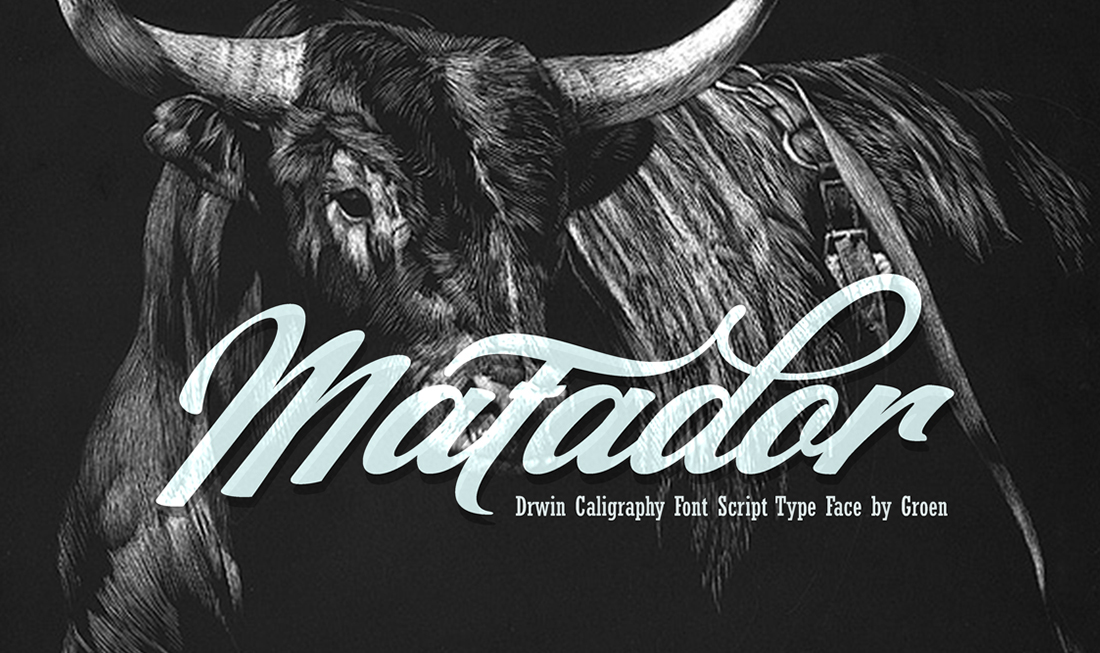
Matador–Free Sample
Matador is bold brush-lettered script that is beautiful and unique. It is a great combination of modern lettering and old-school calligraphy. Big thanks to Groens Studio for providing this free font to us. Make sure to check out more of their beautiful typefaces.